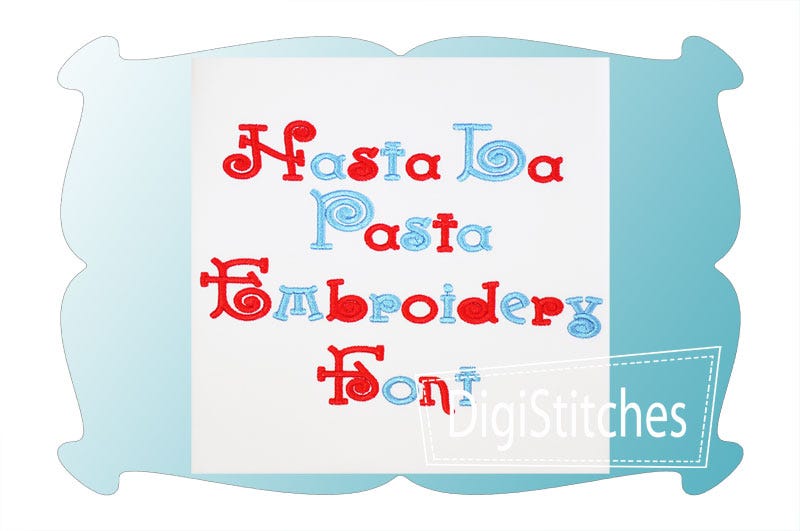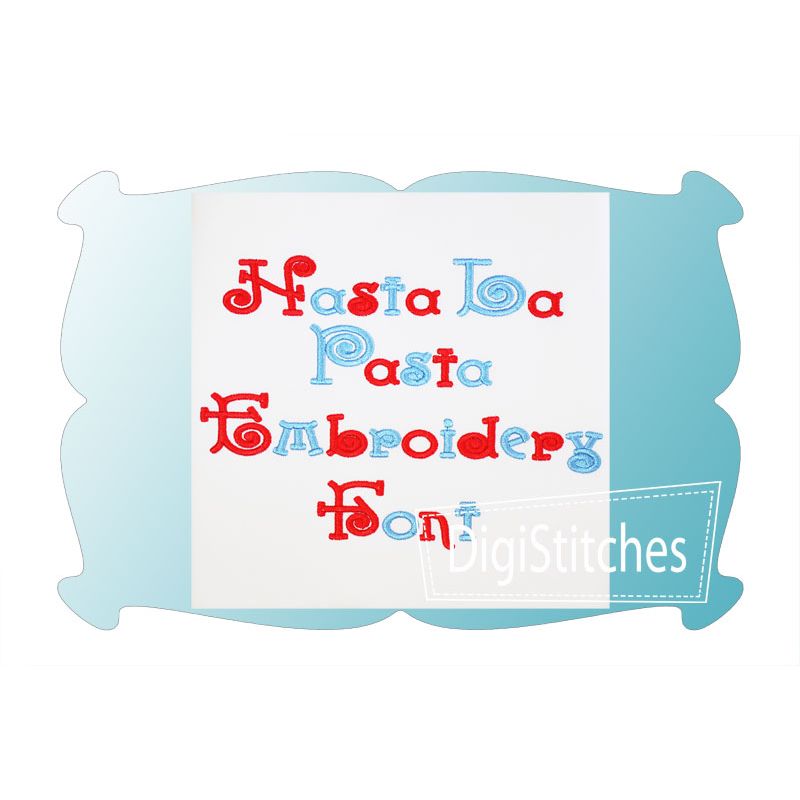
Hasta La Pasta Satin Stitch Embroidery Font
Hasta La Pasta Embroidery Font
Hasta La Pasta embroidery font features super bold letters that really stand out on t-shirts and projects
A super cute curly font with a touch of whimsy.